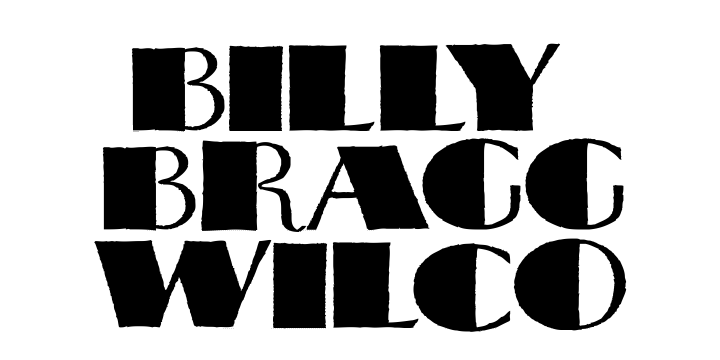
A casual, decorative take on the Broadway style of lettering from the 1920s and 1930s, akin to Oz Cooper’s Boul Mich or the anonymous typeface Nubian published by ATF.
Off Broadway has a hand-wrought texture and lively swash characteristics that capture the flair of pen-rendered sign lettering.